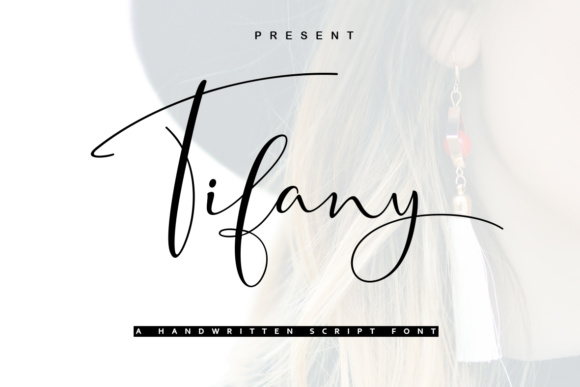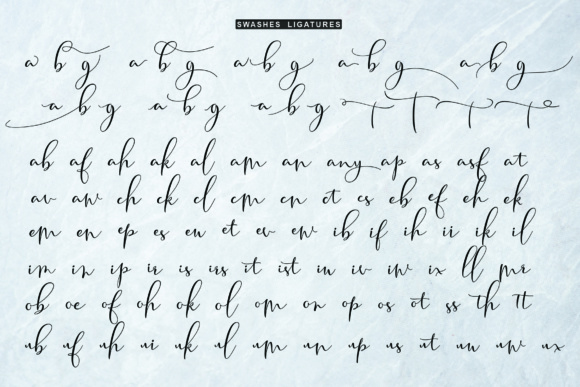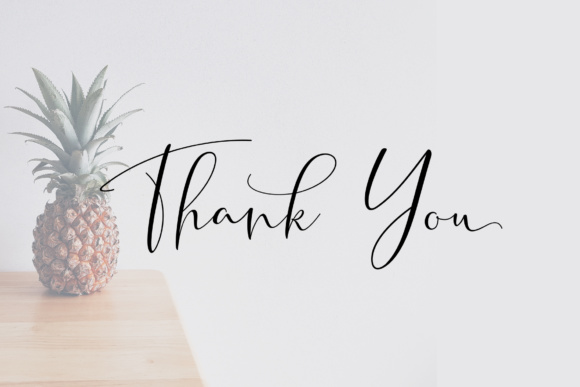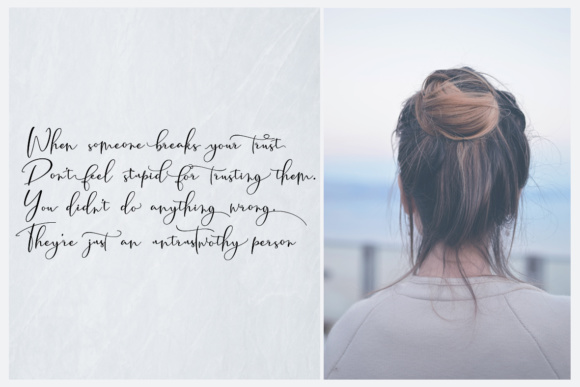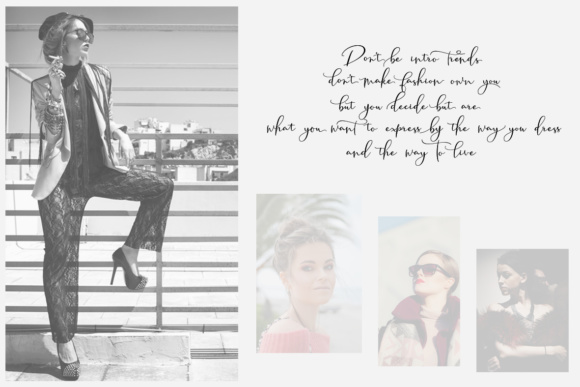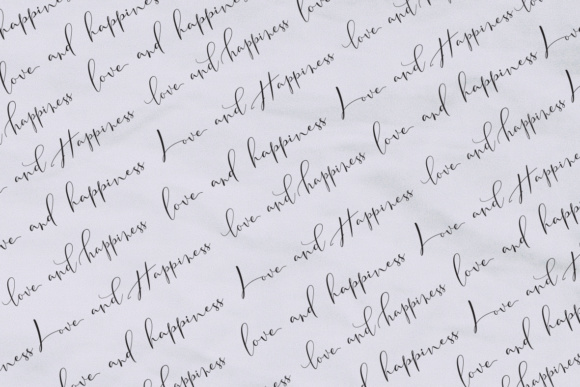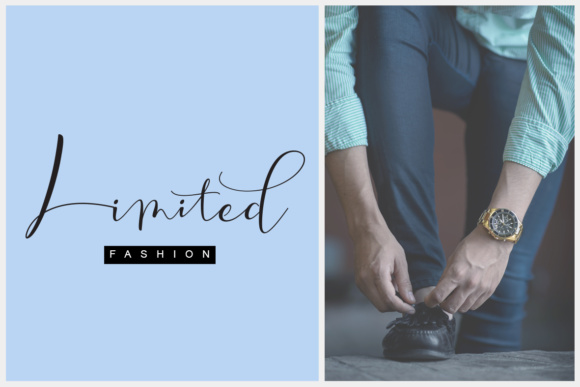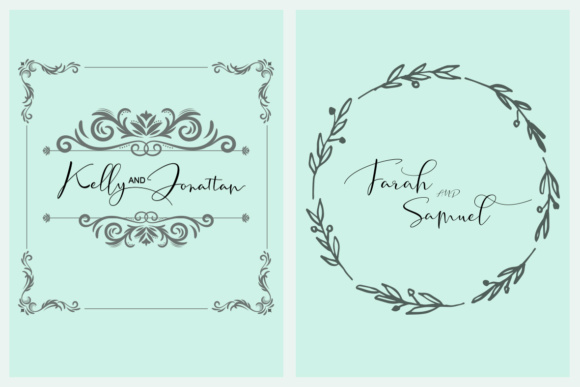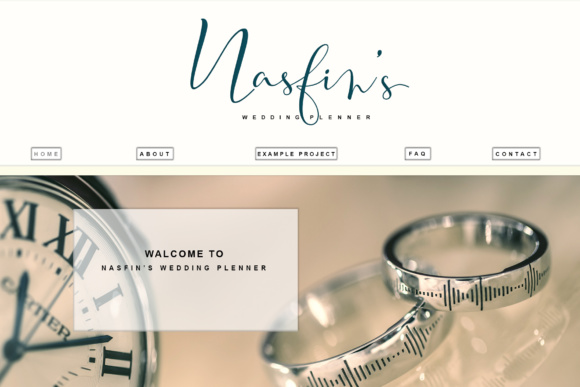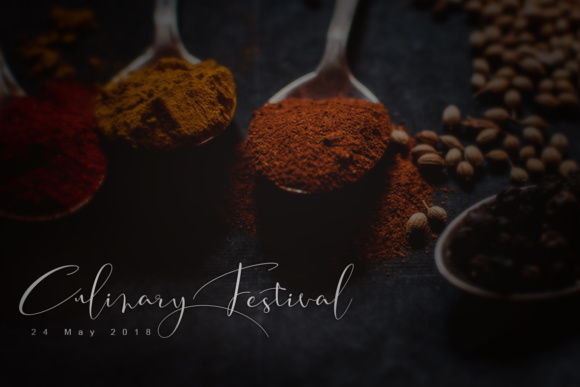
Tifany Font
Tifany is a beautiful, modern calligraphy font that was crafted to make your designs special-looking and elegant. This script comes with over 590 glyphs and features tons of swashes and stylistic alternates so you can create intricate and beautiful typography.